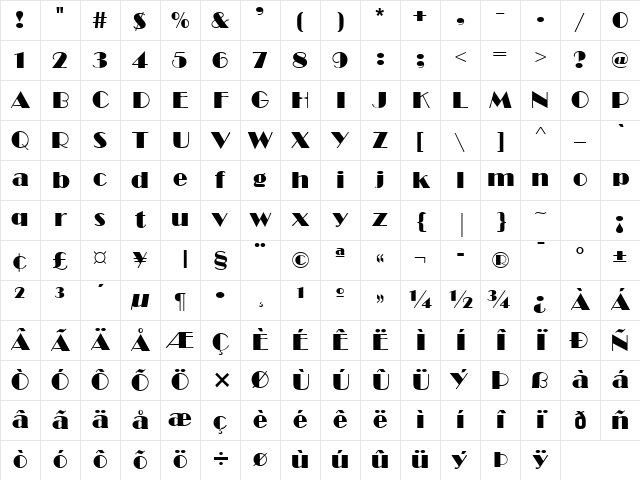
Complete Brando Normal glyph index. Displaying only characters natively supported by Brando Normal font.
Brando is a composed and adaptable typeface that performs quietly and consistently across a wide range of design contexts.